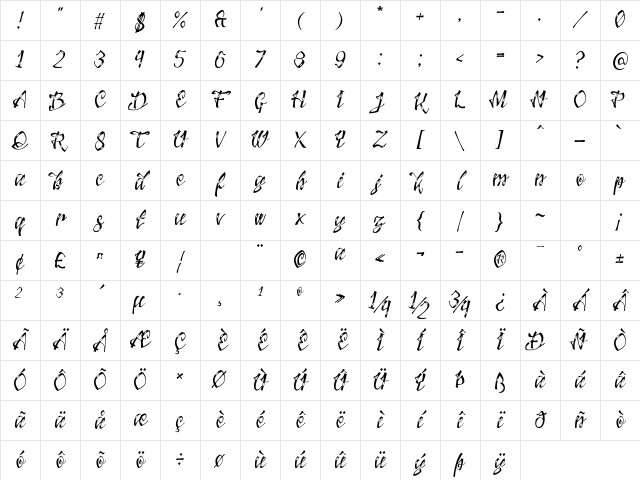
Complete Jacked Eleven Highlight Regular glyph index. Displaying only characters natively supported by Jacked Eleven Highlight Regular font.
Jacked Eleven Highlight is a composed and adaptable typeface that performs quietly and consistently across a wide range of design contexts. Its slender proportions lend an understated elegance to any composition.
Pro Tip: Use Jacked Eleven Highlight in both headline and body roles to test its range before committing to a single application.